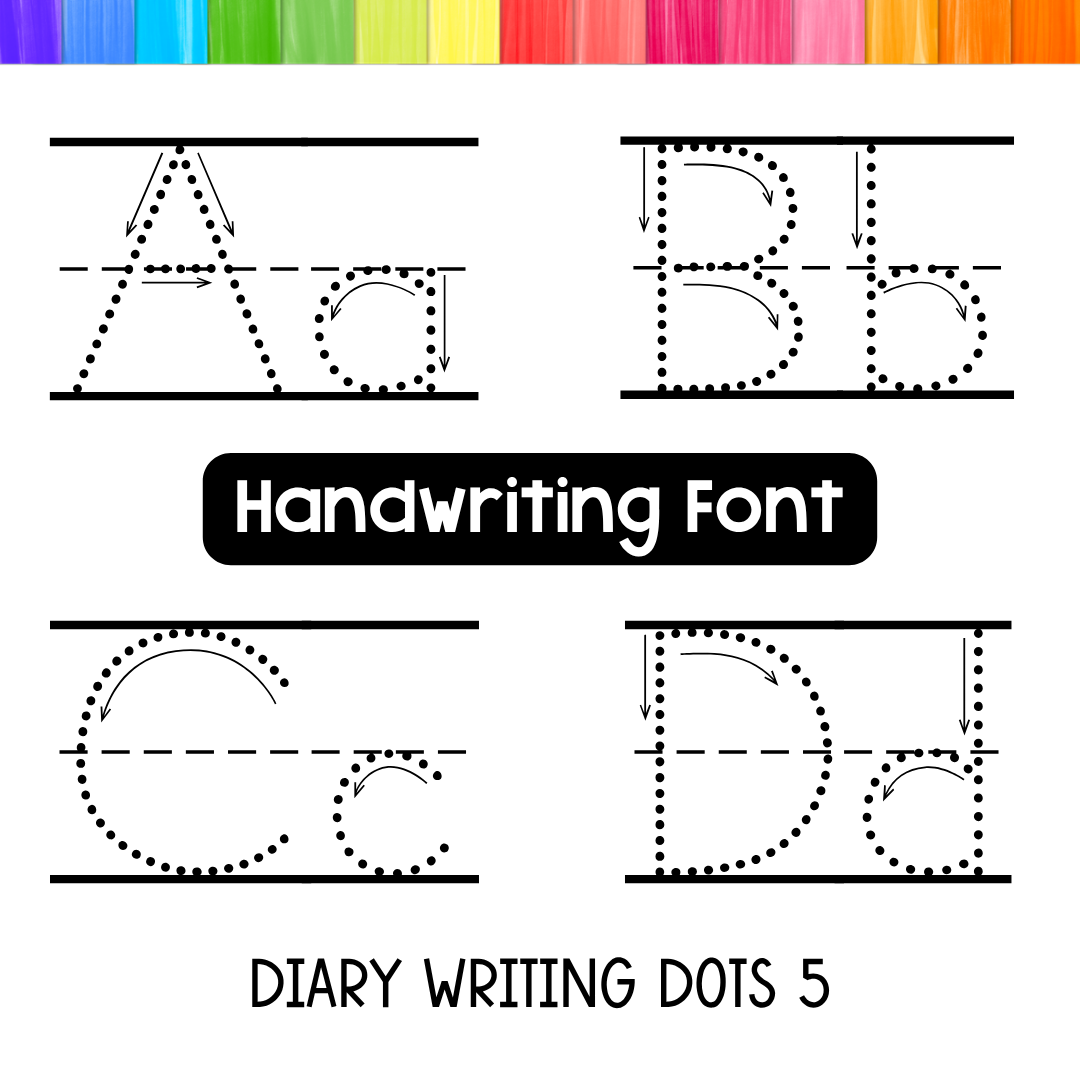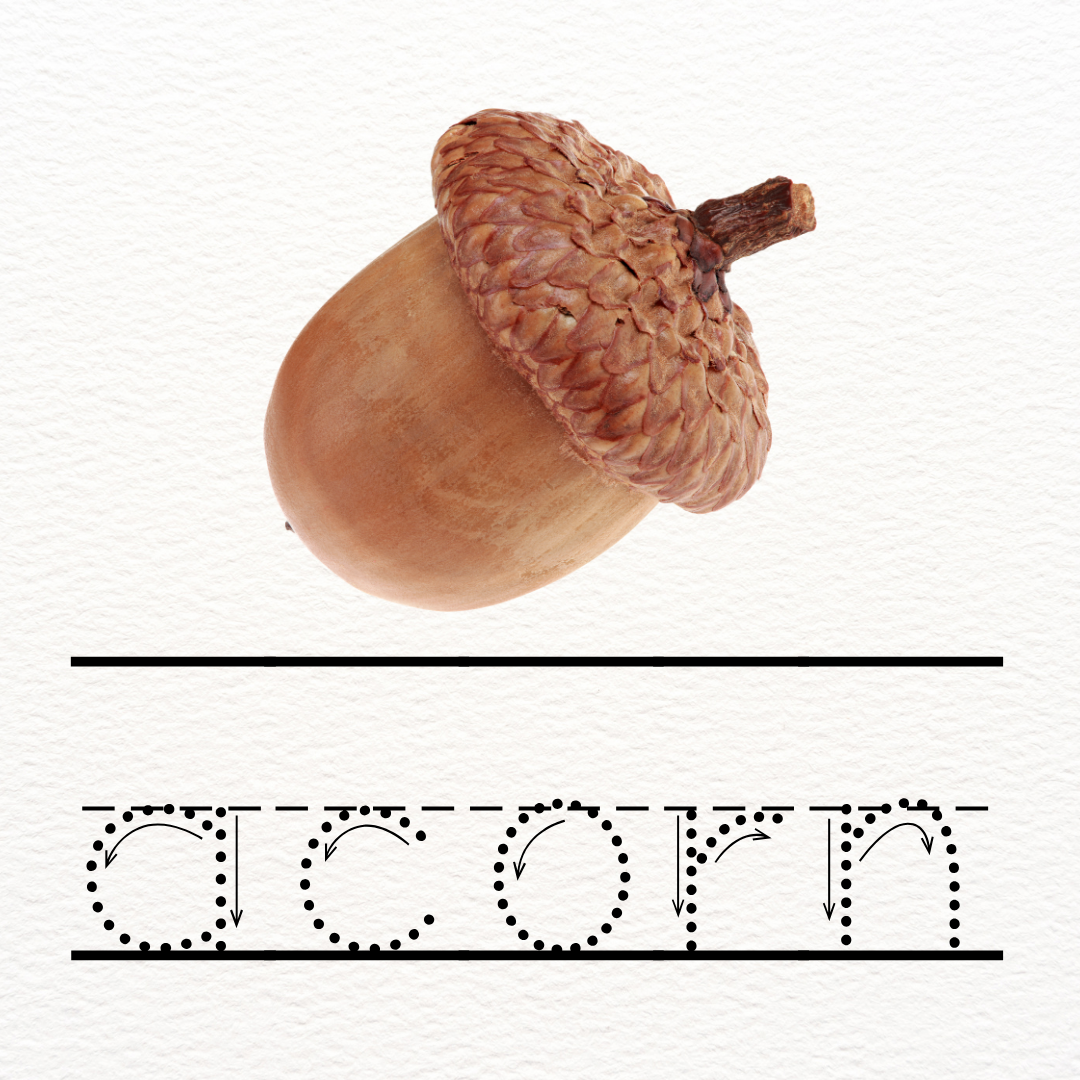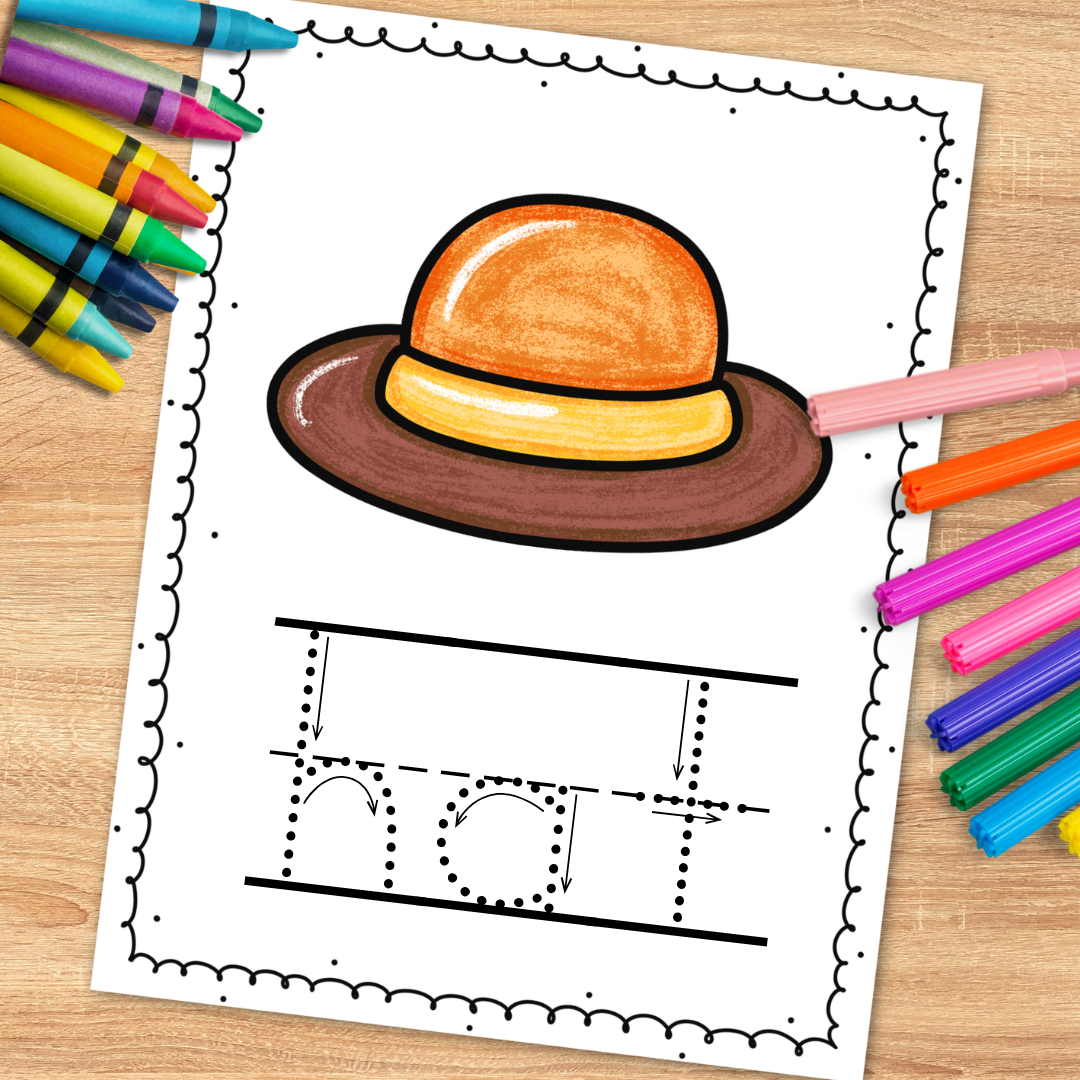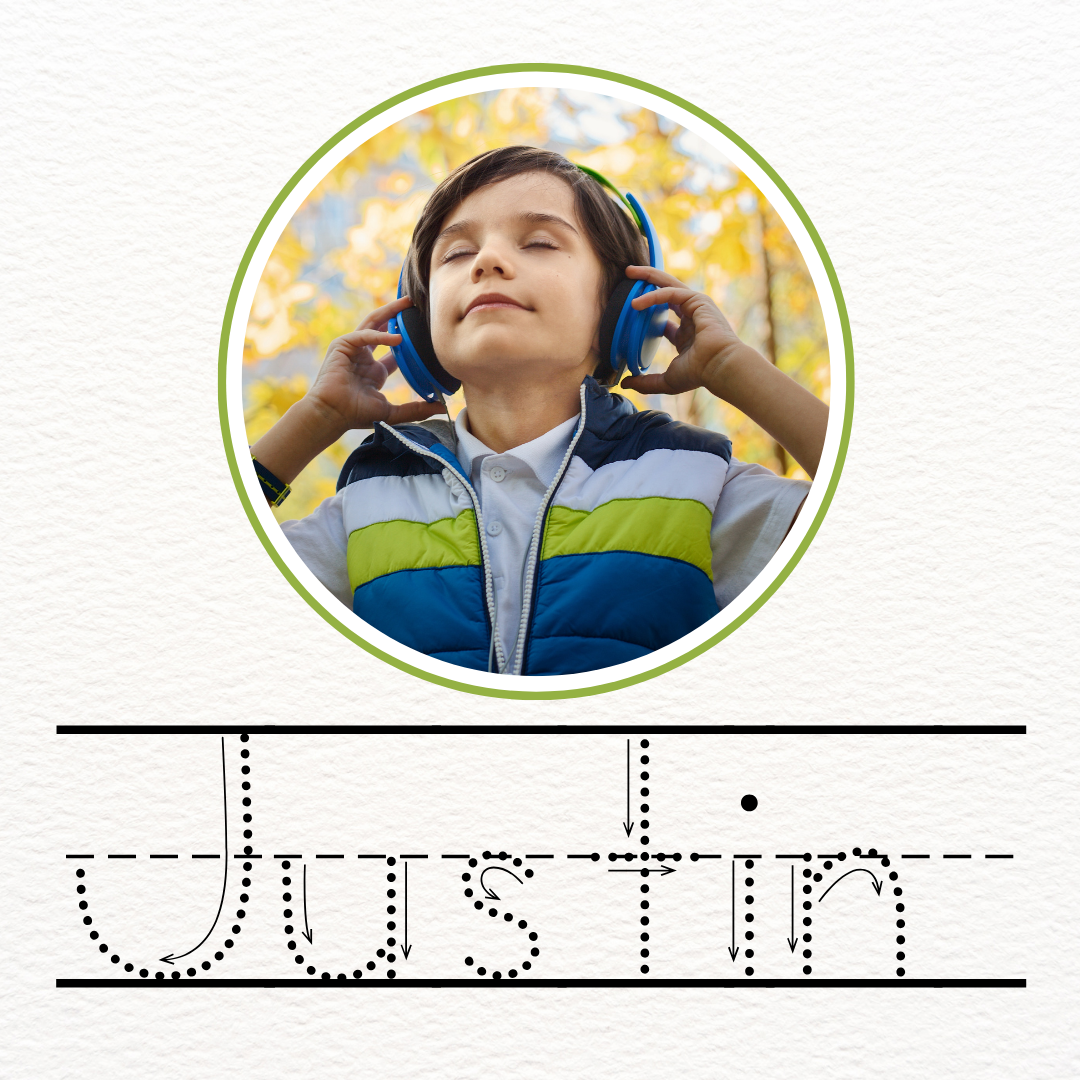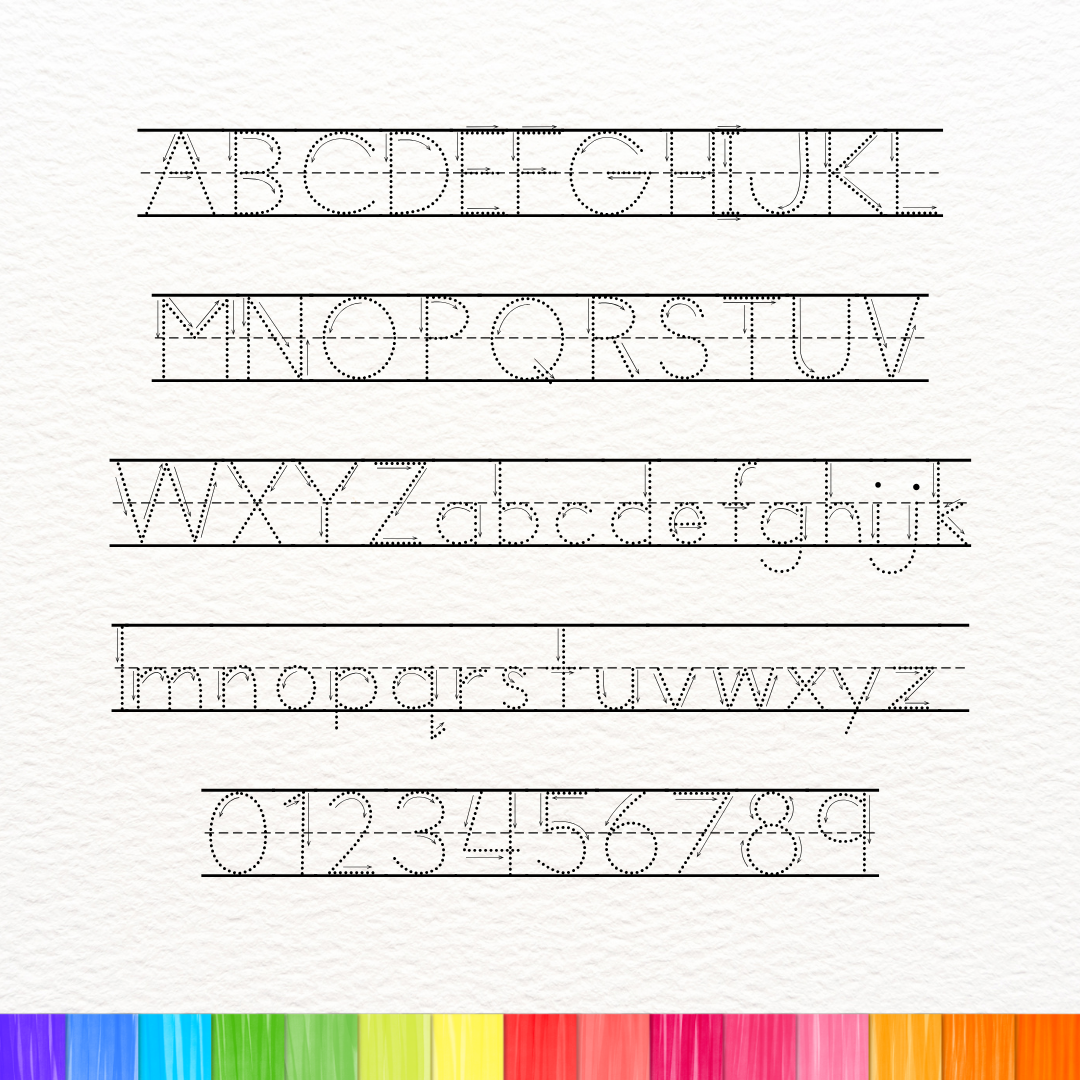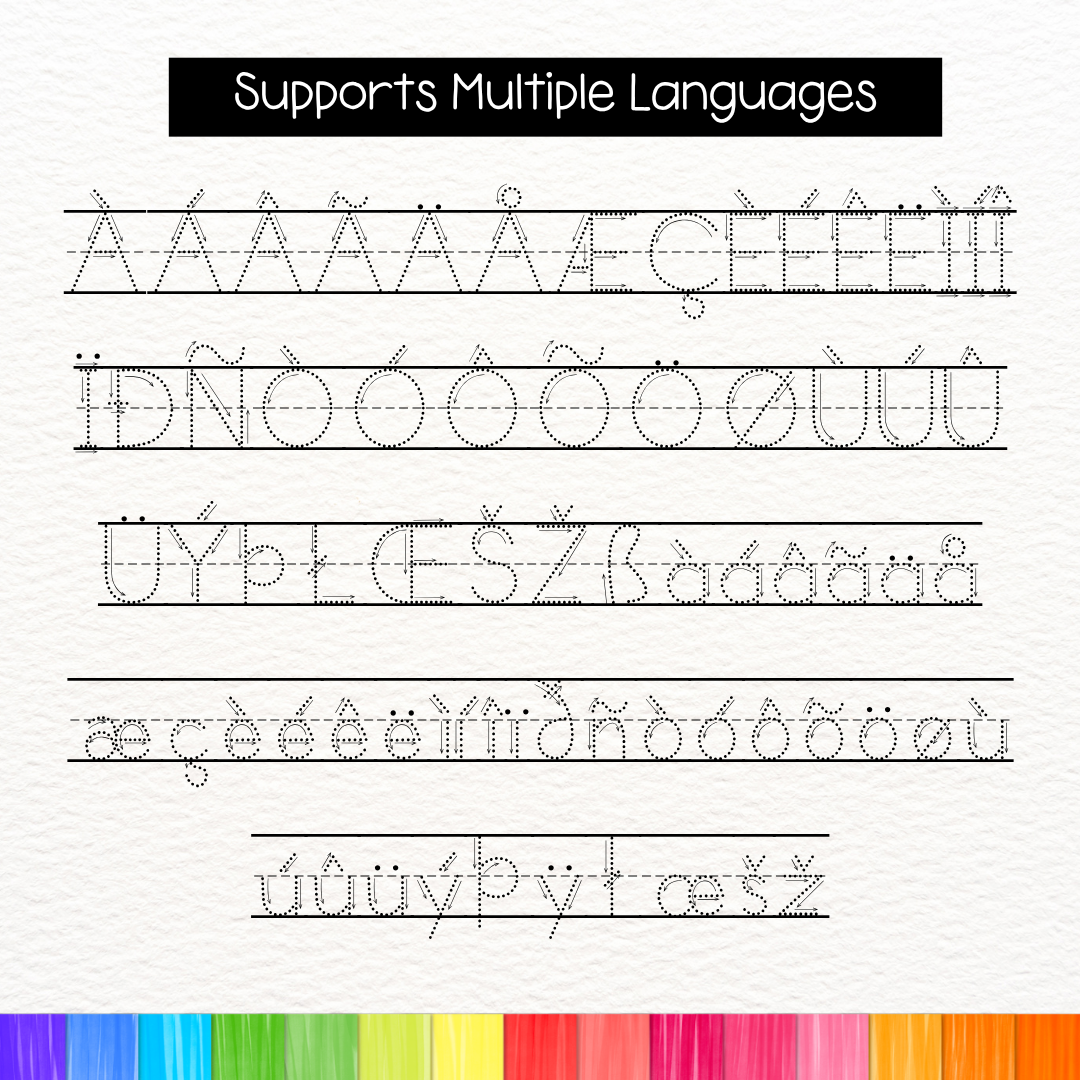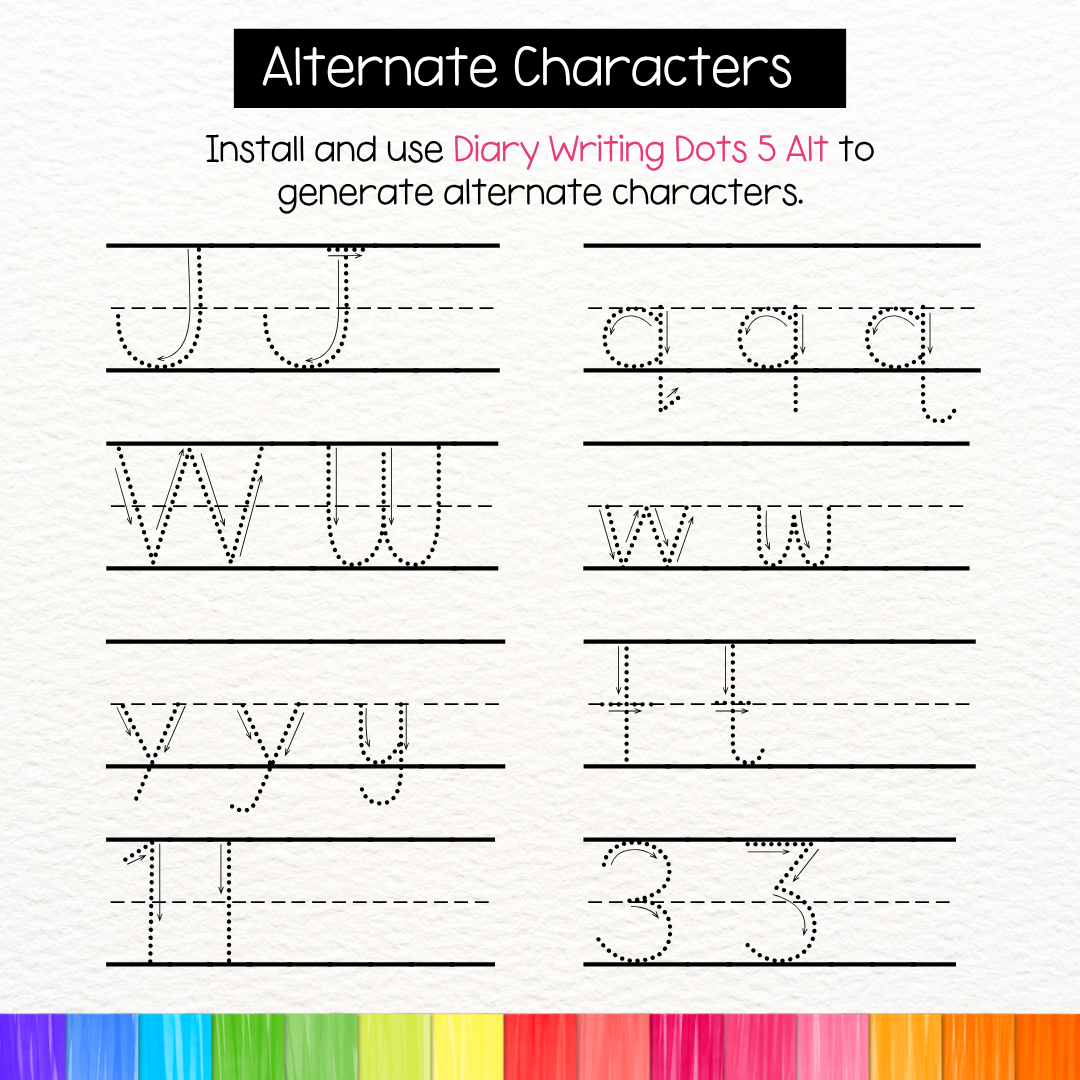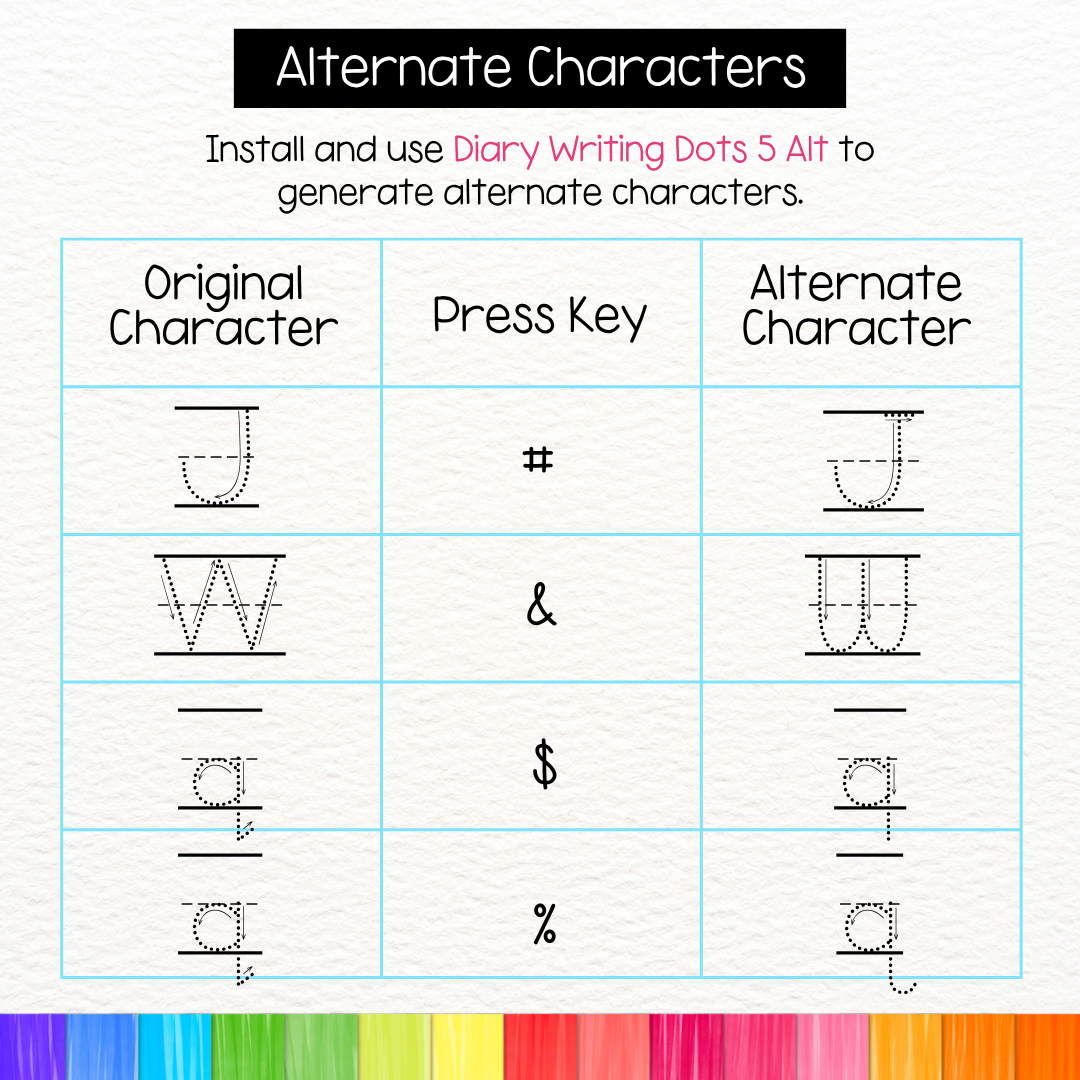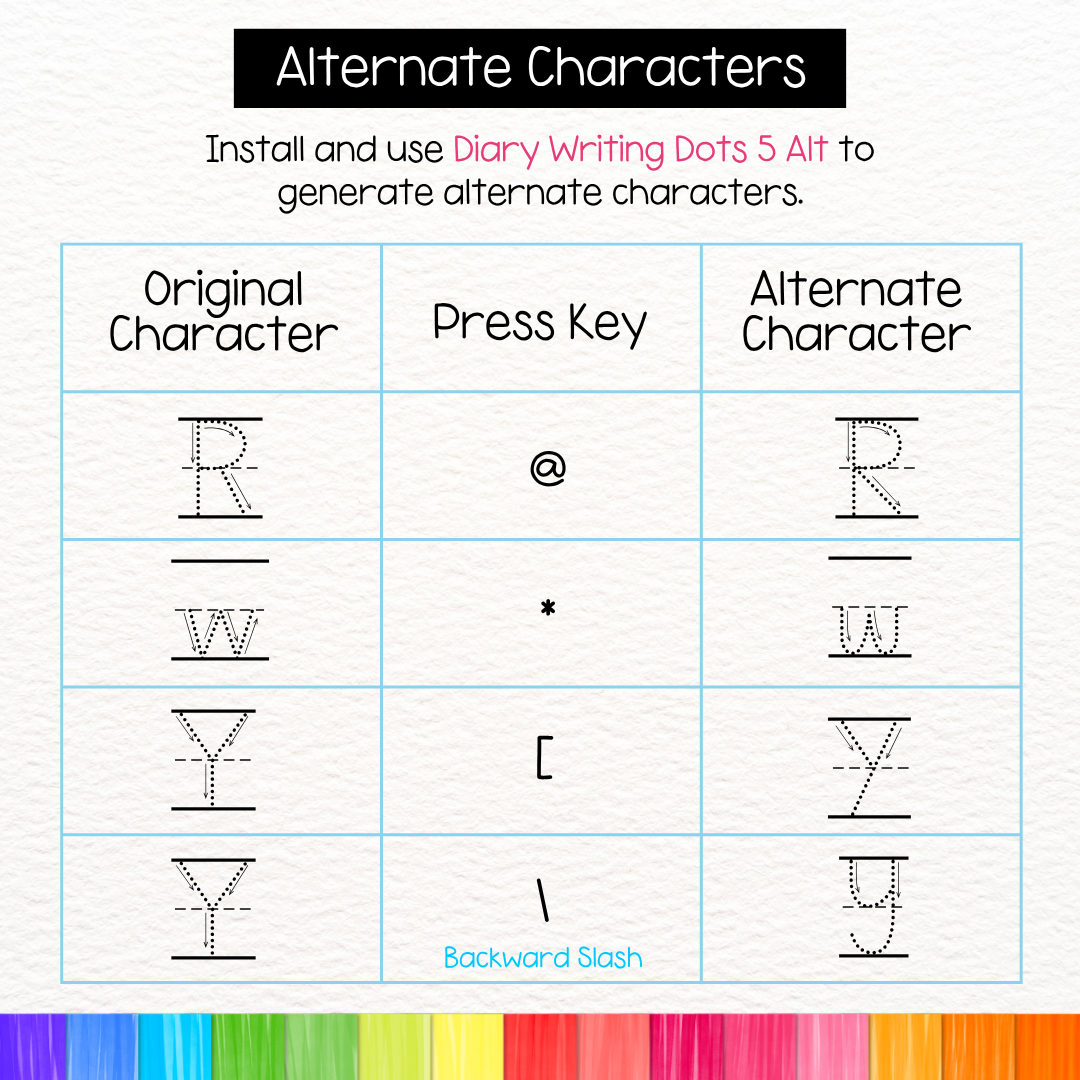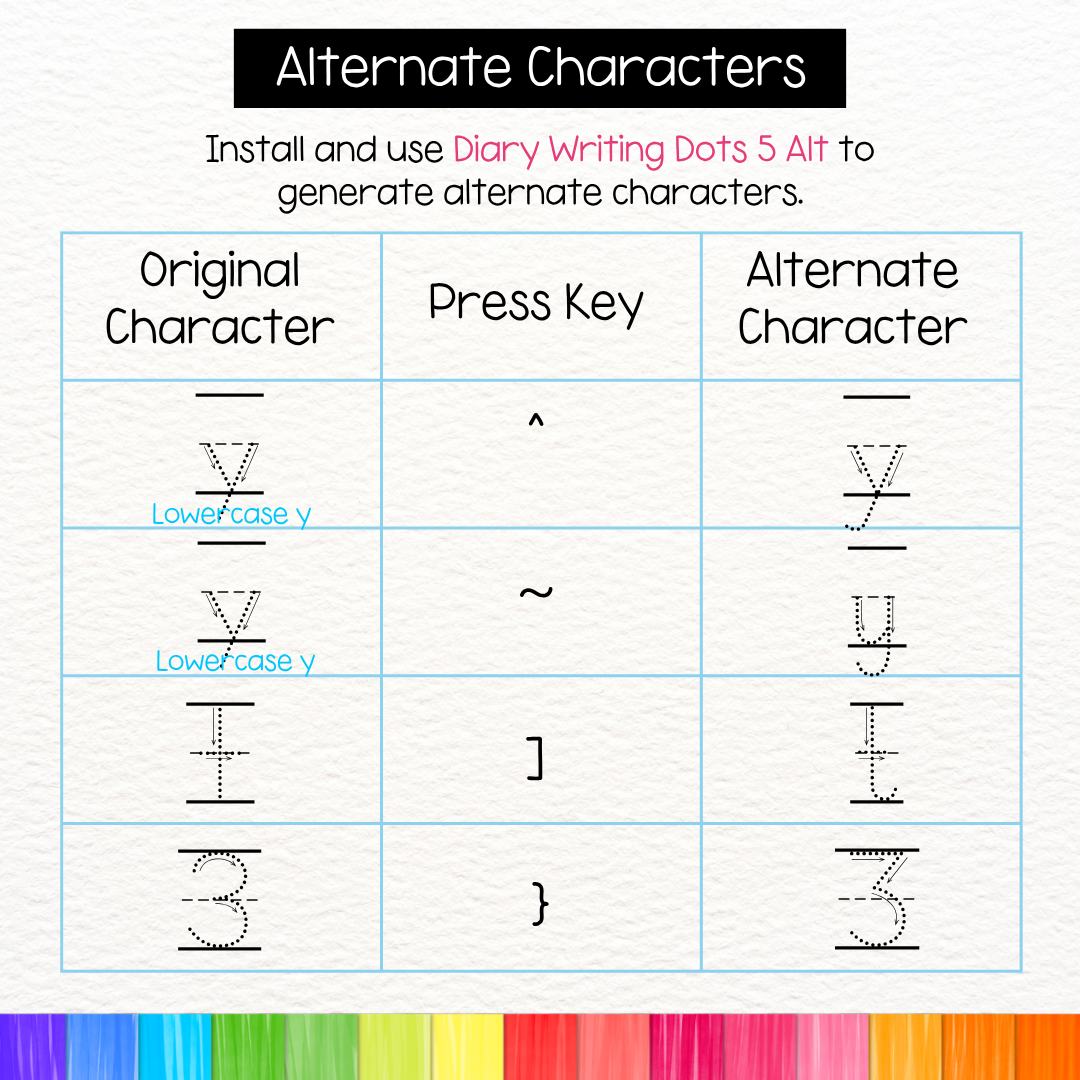
This font has letters with tracing lines and arrows, perfect for your tracing and fine motor activities. This font includes all capital letters, lowercase letters, and numbers, making it ideal for toddler tracing, name tracing, letter recognition, and number tracing exercises, as well as worksheets. It also supports multiple languages.
Lined Dotted Tracing Font with Arrows – Diary Writing Dots 5
This font has letters with tracing lines and arrows, perfect for your tracing and fine motor activities. This font includes all capital letters, lowercase letters, and numbers, making it ideal for toddler tracing, name tracing, letter recognition, and number tracing exercises, as well as worksheets. It also supports multiple languages.